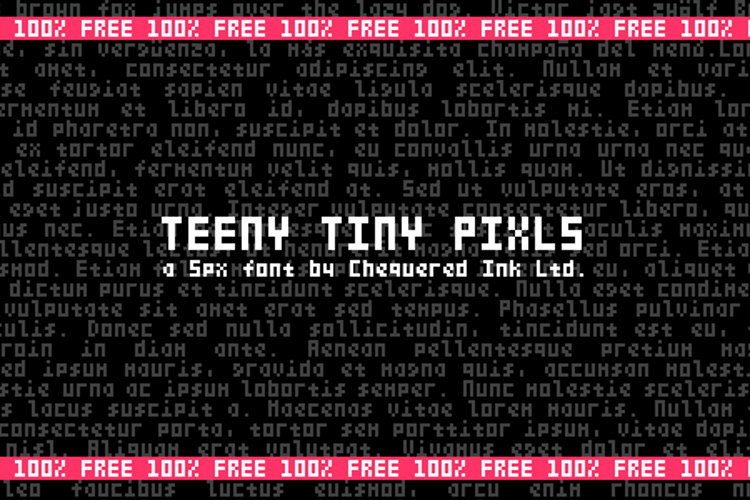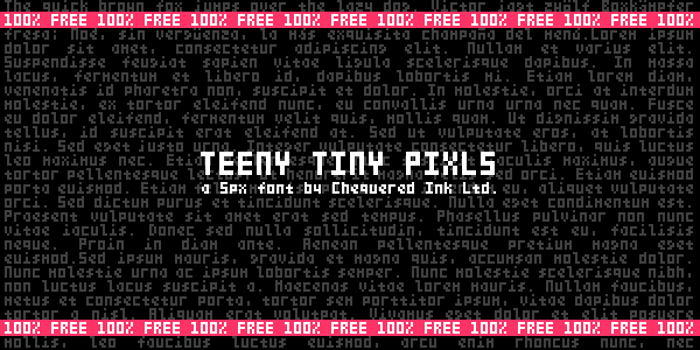
Teeny Tiny Pixls Font
The perfect font for indie developers creating ultra low-res games! Every single character is 3px by 5px, with many European characters included.
So cute!